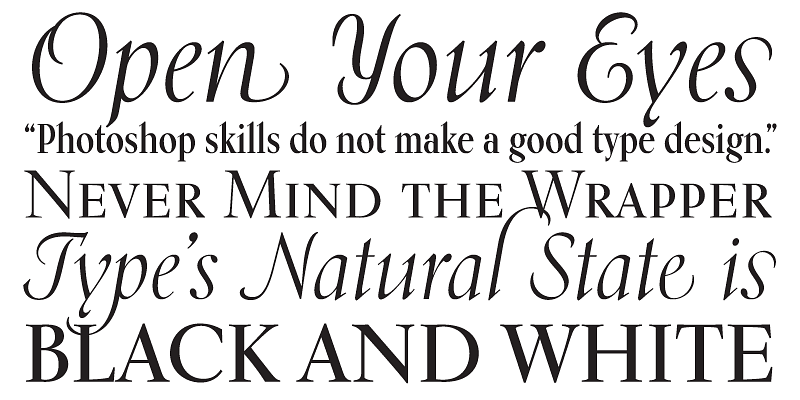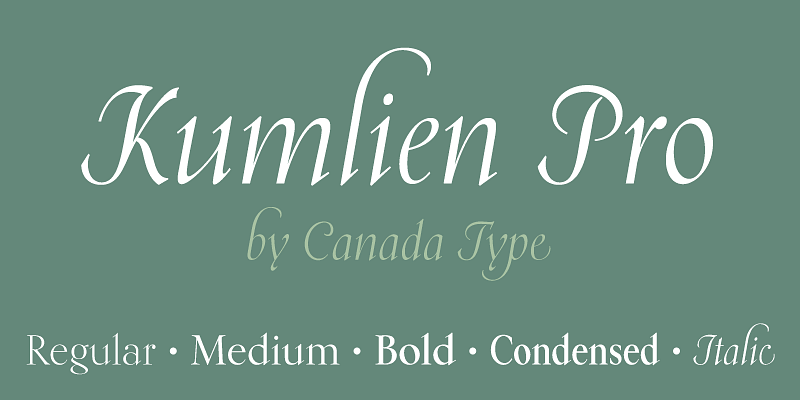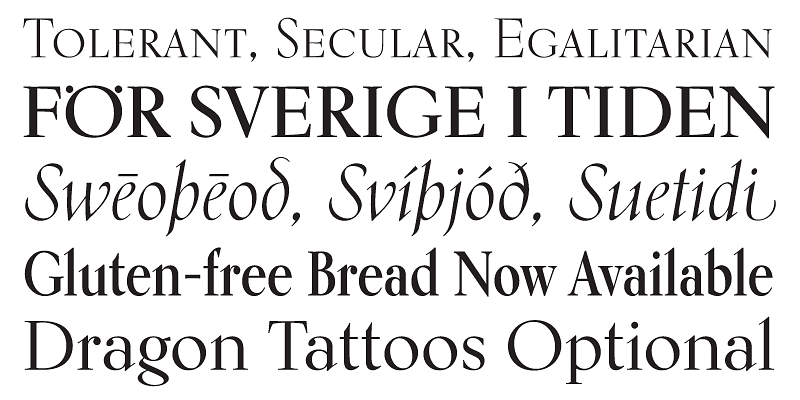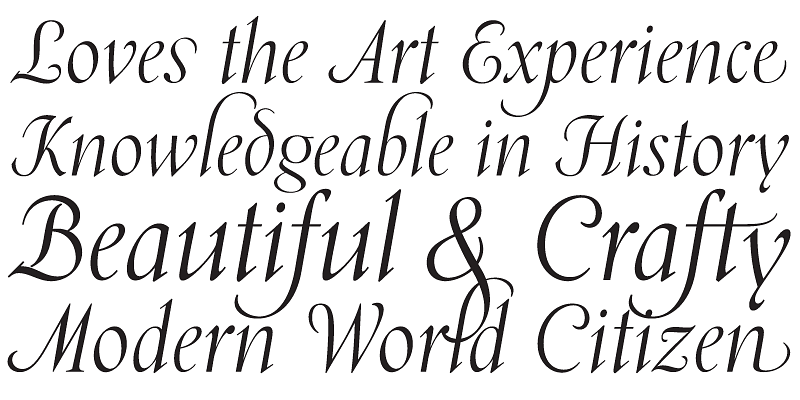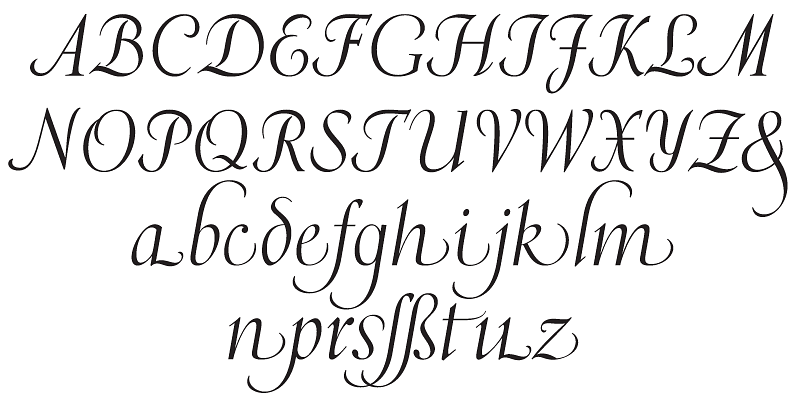
Transitional in appearance and idiosyncratic in detail, Kumlien Pro draws on the oldstyle theme but also employs a deco aesthetic in its upright weights, and uses a rare calligraphic dynamic for its stunning, almost postmodern italic.